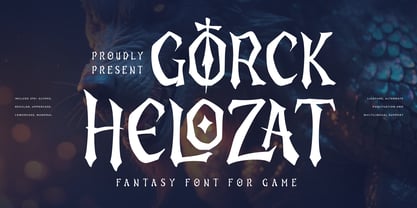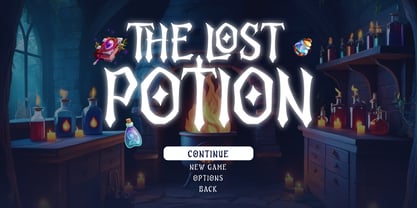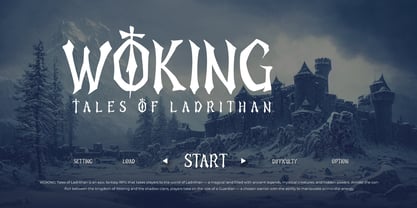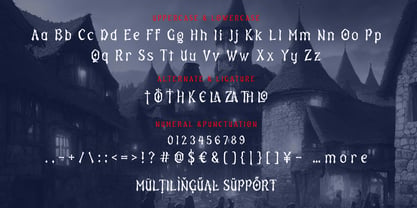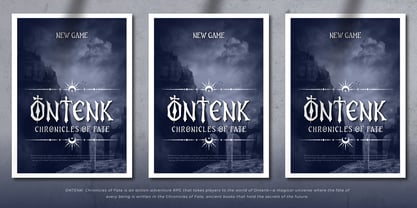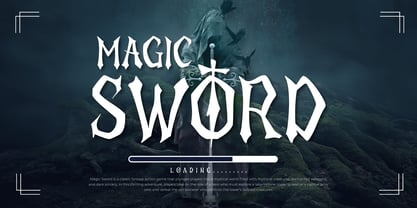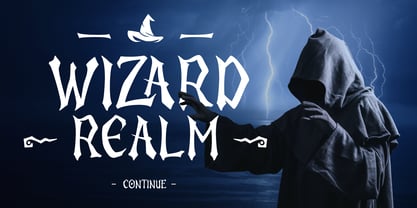
Gorck Helozat
by Twinletter
The Gorck Helozat Font Family was designed by Rozikan and published by Twinletter. Gorck Helozat contains 1 styles. More about this family
Gorck Helozat is a powerful and mythical fantasy display font, designed to bring an epic, medieval, and adventurous touch to any project. Its bold, sharp-edged, and intricate letterforms capture the essence of ancient legends, enchanted worlds, and heroic quests, making it a perfect choice for game titles, RPG branding, fantasy book covers, and mystical-themed designs.
Inspired by legendary warriors, mystical symbols, and forgotten runes, Gorck Helozat exudes a sense of mystery and strength. The strong strokes and elegant yet fierce detailing create an immersive fantasy experience, ideal for projects that demand a magical and battle-hardened aesthetic.
Whether you are designing for a high-fantasy RPG, an action-packed adventure game, or a mythical branding project, Gorck Helozat will add depth, intensity, and a legendary presence to your visuals. Step into a realm of fantasy and heroism with this striking typeface!
Designers: Rozikan Rozikan
Foundry: Twinletter